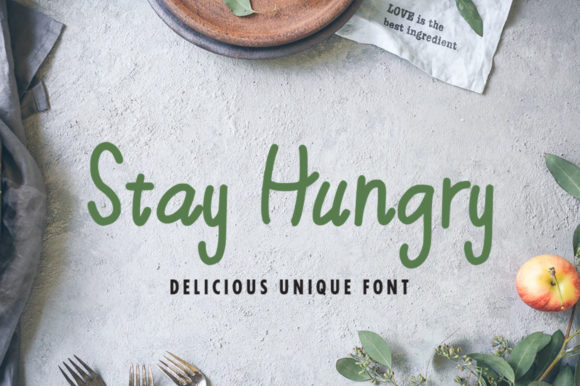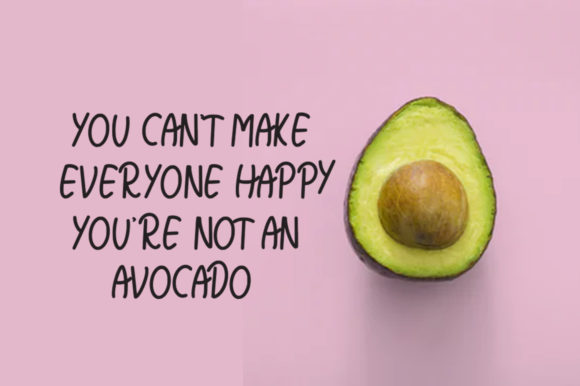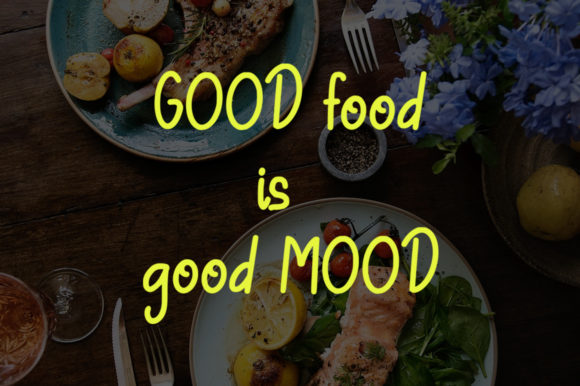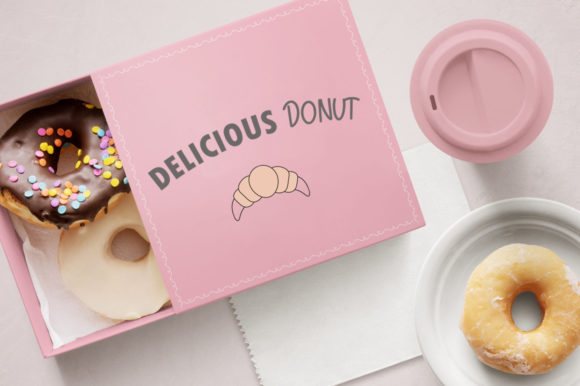
About Stay Hungry Font
Stay Hungry is a cute and casual handwritten font with an incredibly friendly feel. Whether you’re looking for fonts for Instagram or calligraphy scripts for DIY projects, this font will turn any creative idea into a true piece of art!